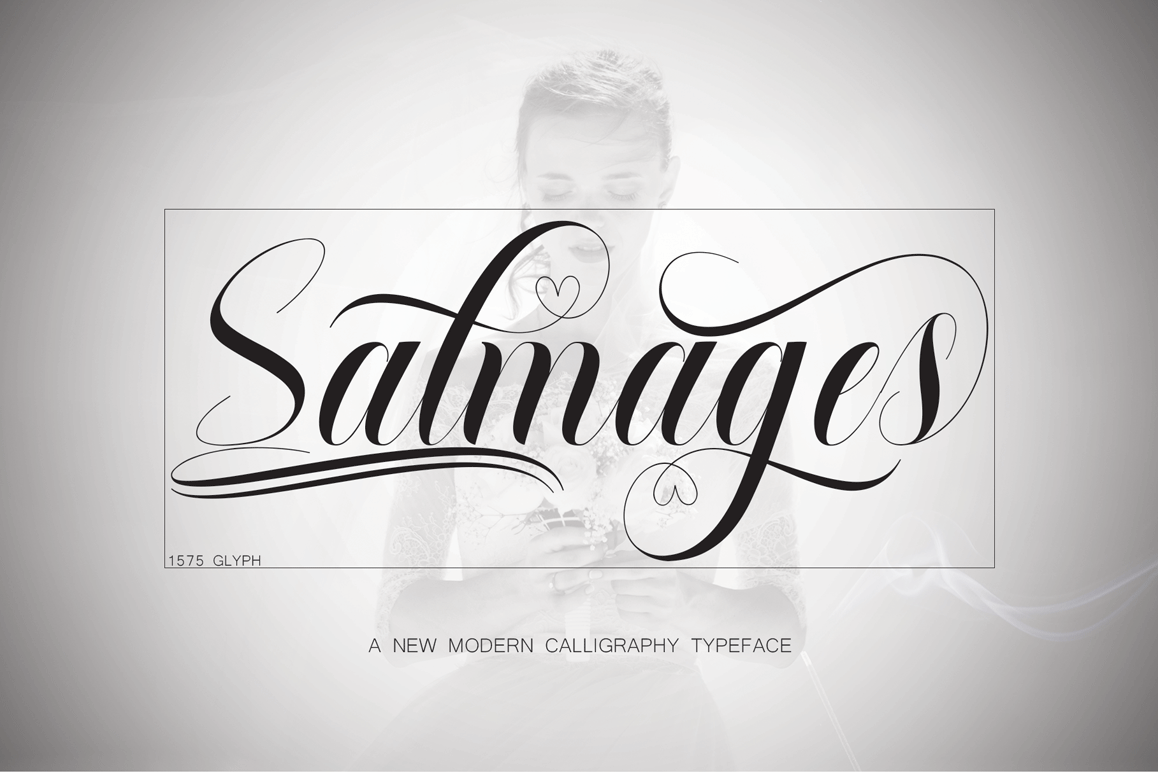
Salmages
Salmages Modern Calligraphy. This font was designed by handwriting, and it has a modern and unique forms of calligraphy, the writing style is very natural. Salmages has a very unique style of calligraphy, it is very suitable for use in the work of modern design.
Features 1575+ glyphs and 1344 alternate character. including initial and terminal letters, alternates, ligatures and multiple language support.
The Features of this fonts is:
* Standart ligatures
* Stylistic Alternates
* Swash
* PUA Unicode (Private Use Areas)
Can be used for various purposes.such as headings, logos, wedding invitation, t-shirt, letterhead, lable, news, posters, badges etc. To enable the OpenType Stylistic alternates, you need a program that supports OpenType features such as Adobe Illustrator CS, Adobe Indesign & CorelDraw X6-X7.a font that made the hand by having the character up and down like a dancer.has a very unique style of calligraphy, it is very suitable for use in the work of modern design.